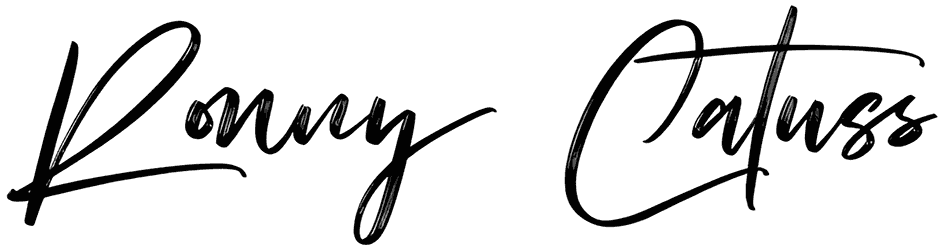
If creating a sense of personalization, dynamic, professionalism, and tenderness is your first priority in designing graphic content, including business cards, gift cards, logos, social media posts, or product packaging, a script font such as Ronny Catuss would help you achieve your goals. Although this signature font doesn’t support numbers, it is still worth trying in every kind of editorial project.